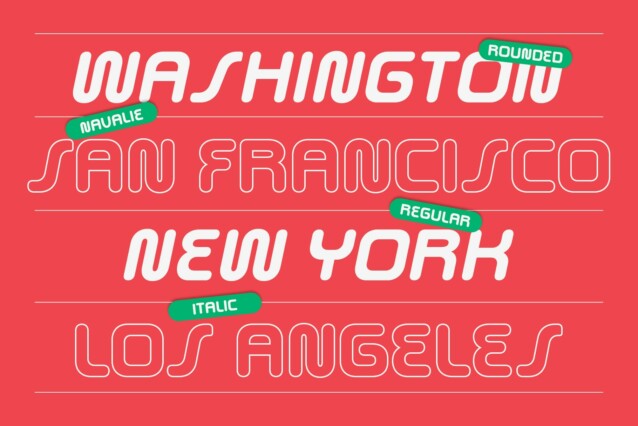
Navalie Rounded Font
Navalie Rounded Font is a bold, geometric sans serif font that evokes both a classic and timeless aesthetic. Its clean, symmetrical shapes and thick letterforms create a strong visual impact, blending modern simplicity with a subtle retro vibe. This distinctive design bridges the gap between past and present, offering versatility for a wide range of creative projects.